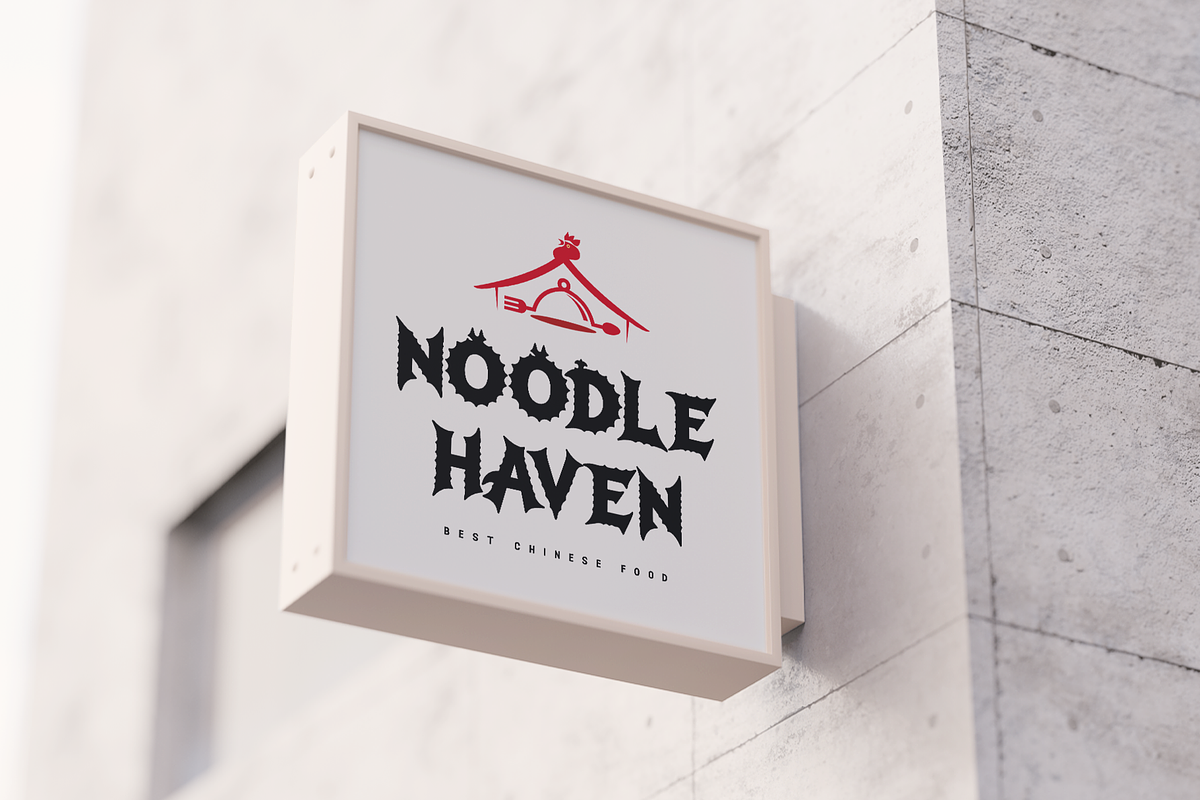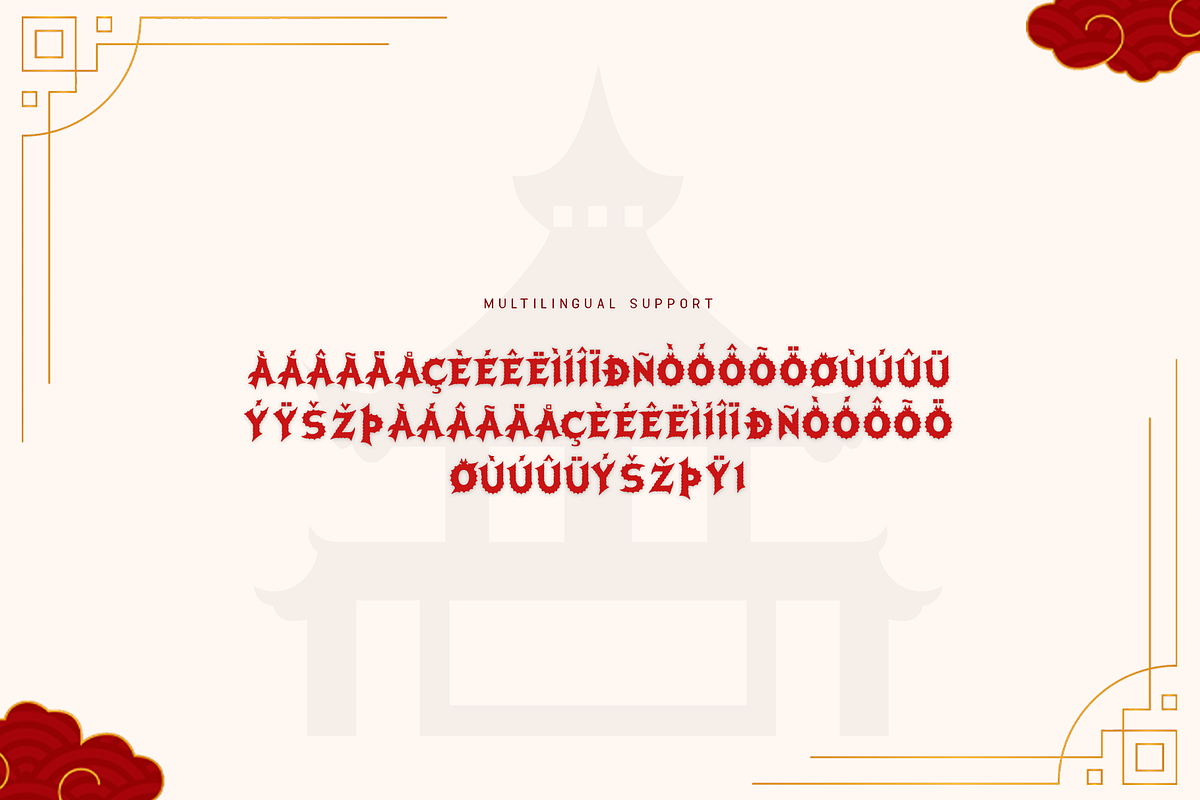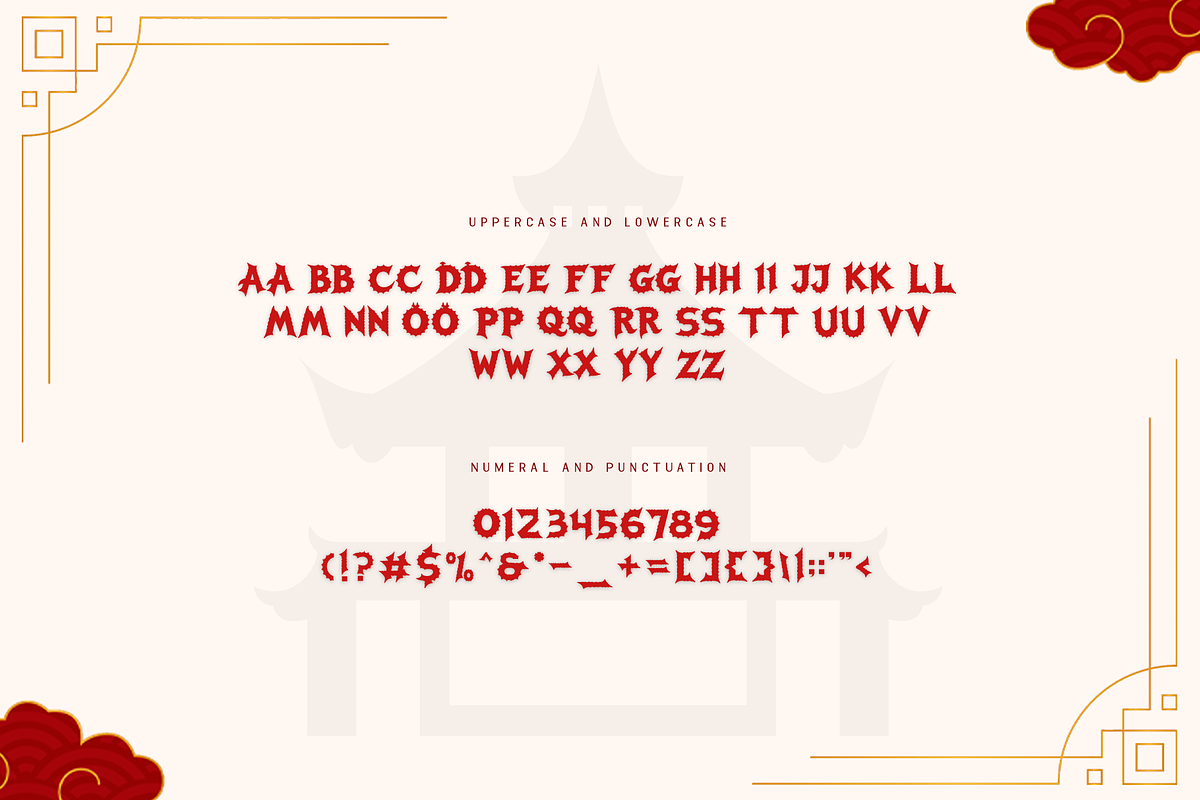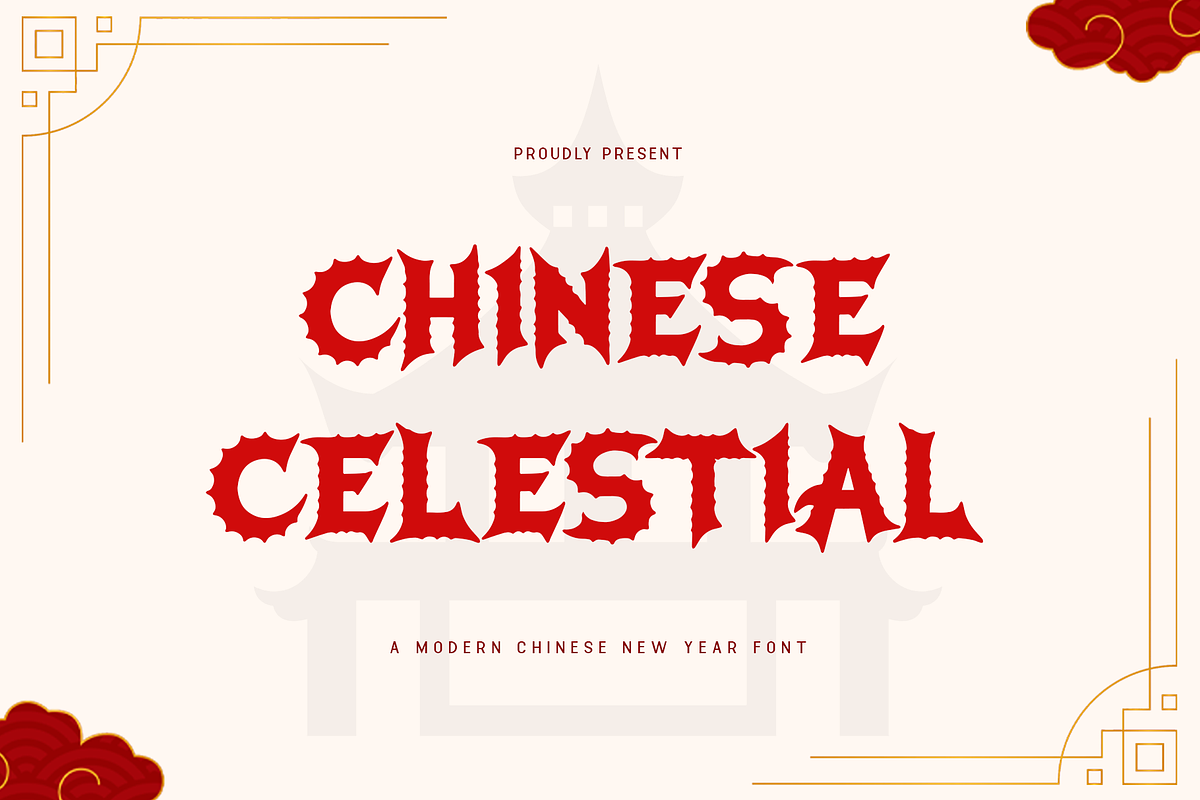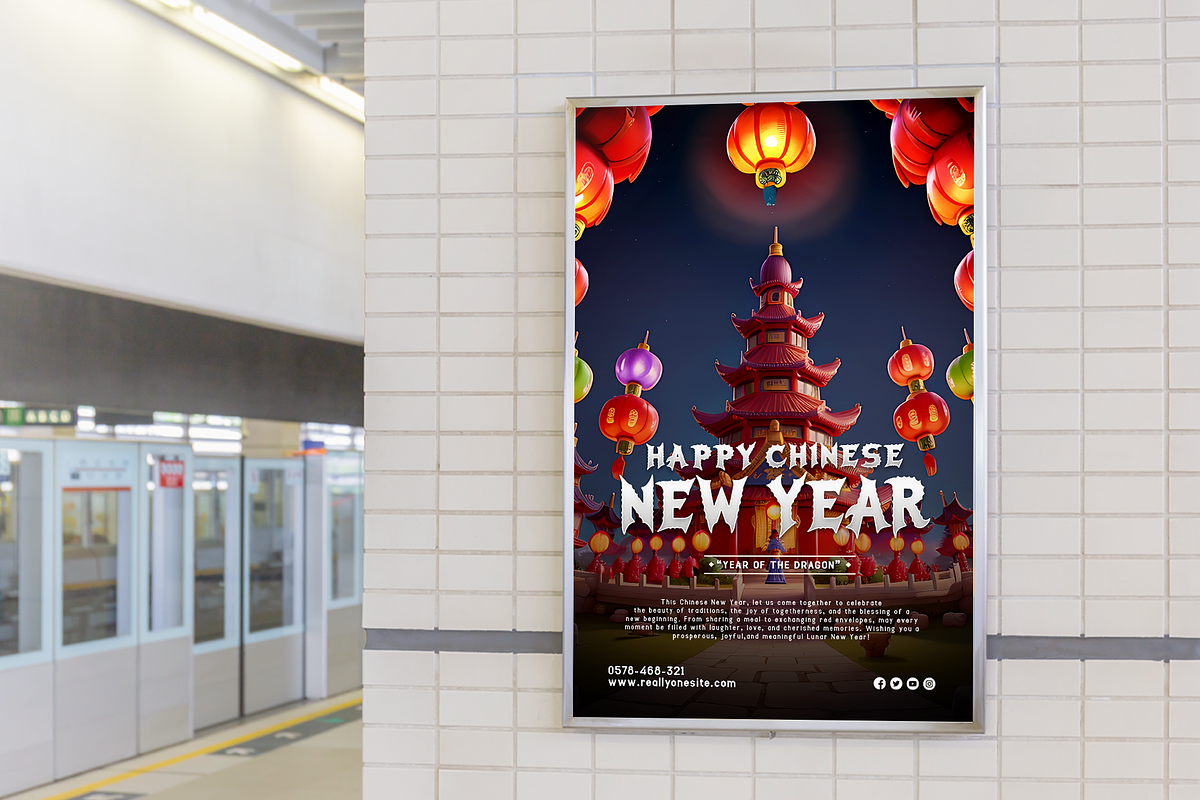
Chinese Celestial - A Modern Chinese New Year Font
Celebrate the grandeur of the Lunar New Year with Chinese Celestial, a modern font inspired by the heavens and the celestial charm of Chinese tradition. Designed with elegant curves and intricate details, this typeface captures the essence of prosperity and festive celebration.
Perfect for event posters, invitations, branding, and cultural designs, Chinese Celestial blends traditional motifs with contemporary aesthetics. Its delicate strokes and unique style make it a standout choice for projects that call for sophistication and cultural depth.
Complete with multilingual support and a versatile character set, Chinese Celestial ensures your designs shine brightly in any context. It’s the ideal font to elevate your Chinese New Year projects.